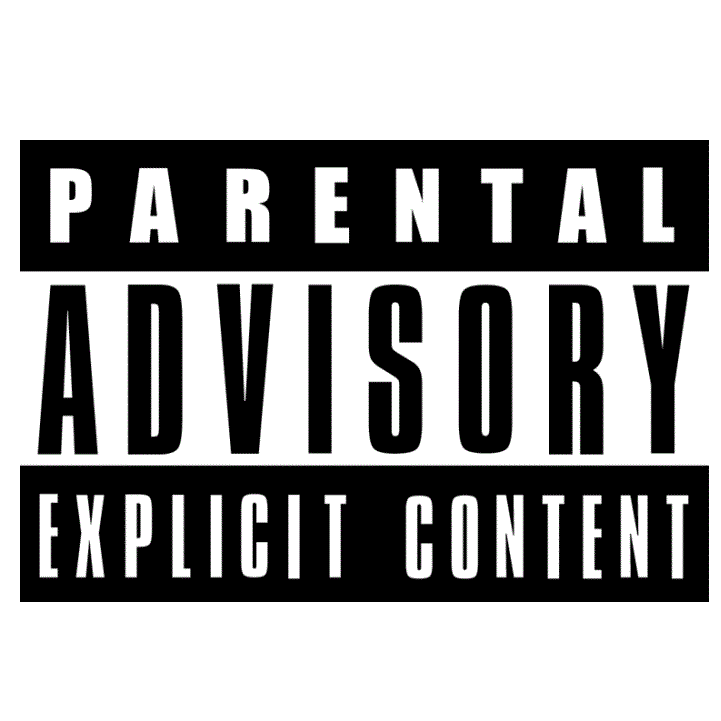
Parental Advisory Label Font
EntertainmentParental Advisory label (abbreviated PAL) is a warning label placed on music albums and other media that contain explicit content deemed inappropriate for minors. It was introduced by the Recording Industry Association of America in 1985.
Our research of the Parental Advisory Label logo, as per the brand guidelines provided by the BPI and the RIAA, suggests that the font used for the label should be a combination of Impact for "PARENTAL" and Compacta for "ADVISORY EXPLICIT CONTENT". However, there are many variations of the PAL label found in Google Images that use different fonts choices.